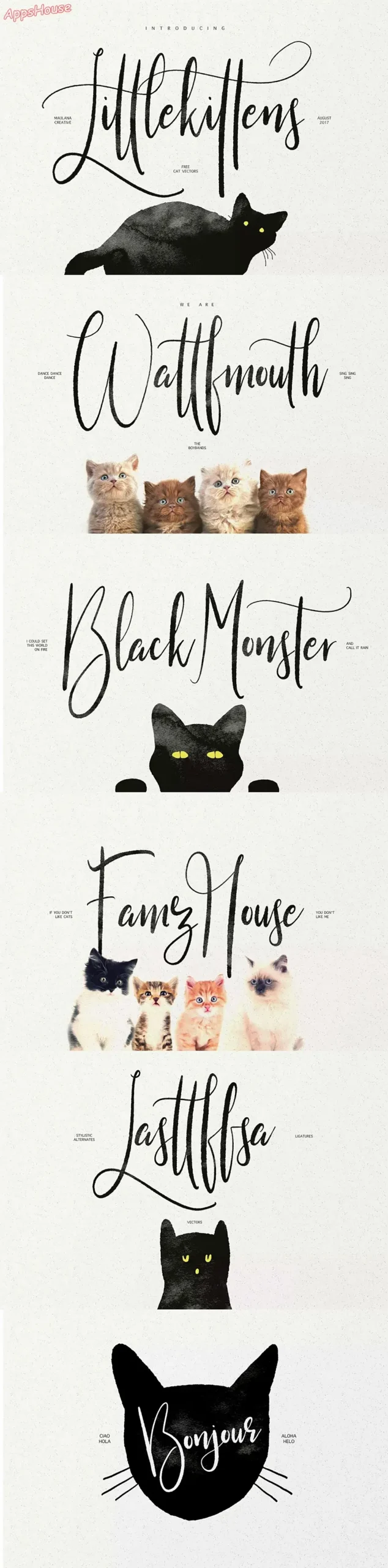
Little Kittens Brush Calligraphy Font
Introducing the Little Kittens Brush Calligraphy Font, a charming typeface that captures the playful essence of kittens. This font features elegant brush strokes, providing a handcrafted feel perfect for a variety of design projects.
• Unique brush calligraphy style
• Multilingual support for various languages
• Weights: Regular
This font is ideal for branding, logos, invitations, greeting cards, and other print or digital projects where a touch of whimsy is desired.